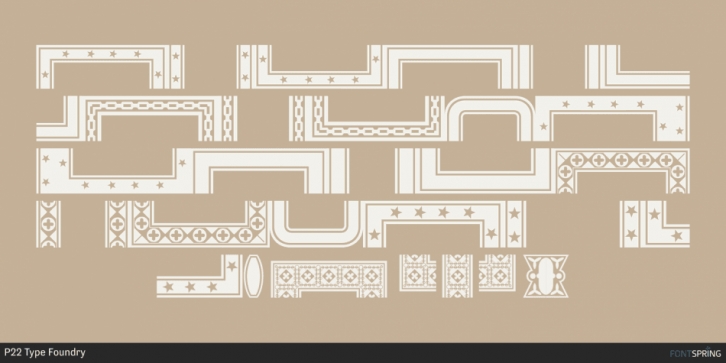
HWT Borders One Font Download
Publisher: P22 Type Foundry
Designed by Richard Kegler, HWT Borders One is a dingbat font published by P22 Type Foundry.
Wood Type Catalogs of the 19th century often offered tools and accessories alongside alphabets of wood type. Probably the most closely related was wood type borders and ornaments. Decorative Borders were often sold by the foot and accompanied by corner pieces that matched the designs. These borders could be assembled in almost any size dimensions as needed. The digital version uses the same principals of modular assembly to create the exact size border that is needed.
Along with the borders, included in this font are a selection of “streamers”. These banners would have been made to order with the font designs reversed out along a horizontal banner with decorative end caps. The digital version allows for a modular assembly by selecting choice of end caps and then typing the = as many times as needed to achieve the desired length. 10 styles of 9 piece borders can be created in any size variations as well as 8 styles of streamers in any desired length. Some of the designs can be mixed and matched for unusual contemporary design interpretations of these historic styles. It is recommended that the line height (leading) is set to the same size as the point size setting, this will visually lock all elements together